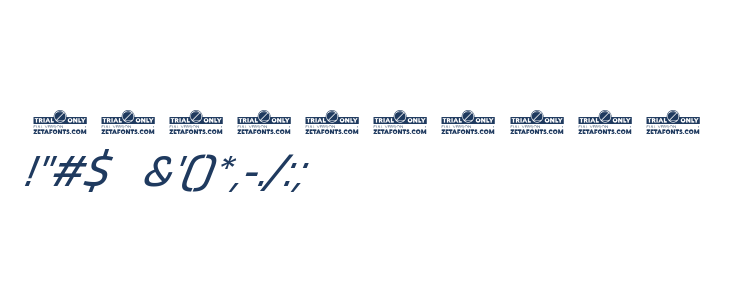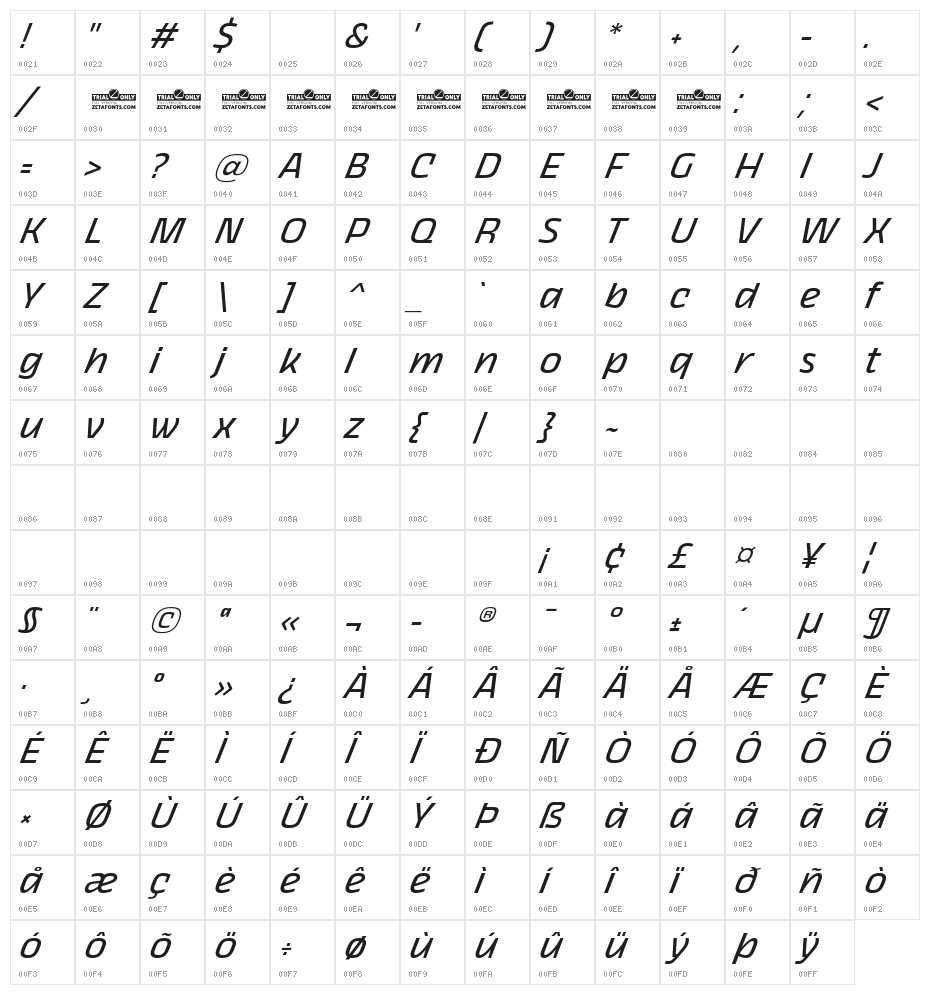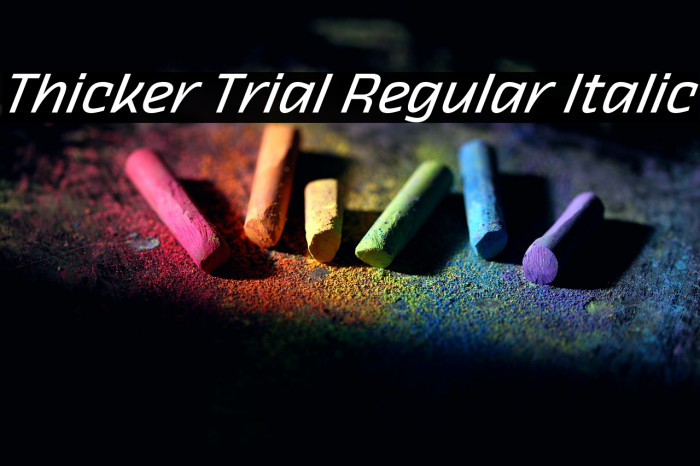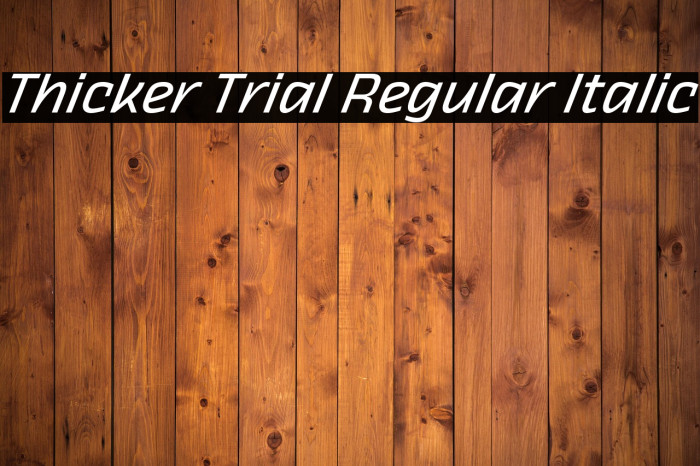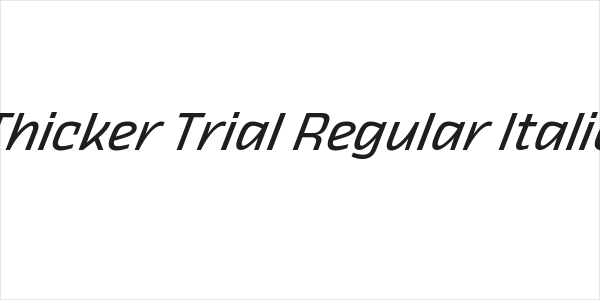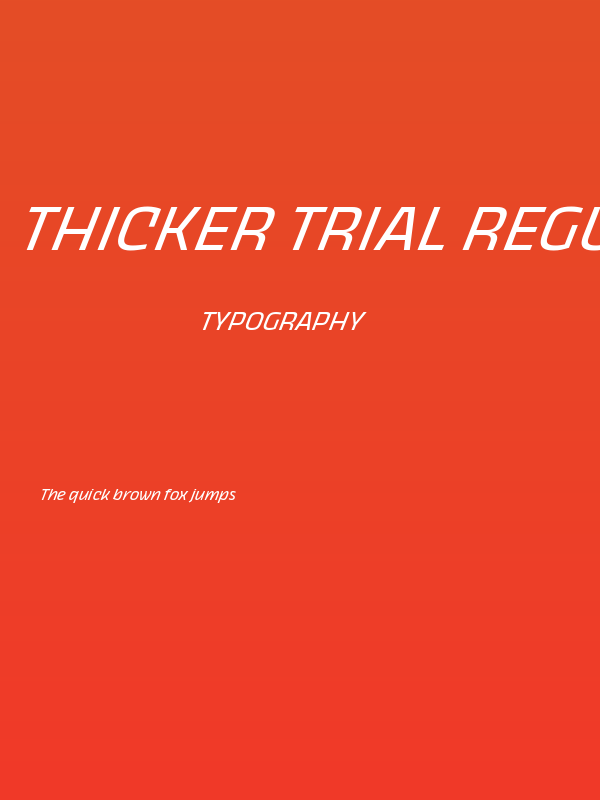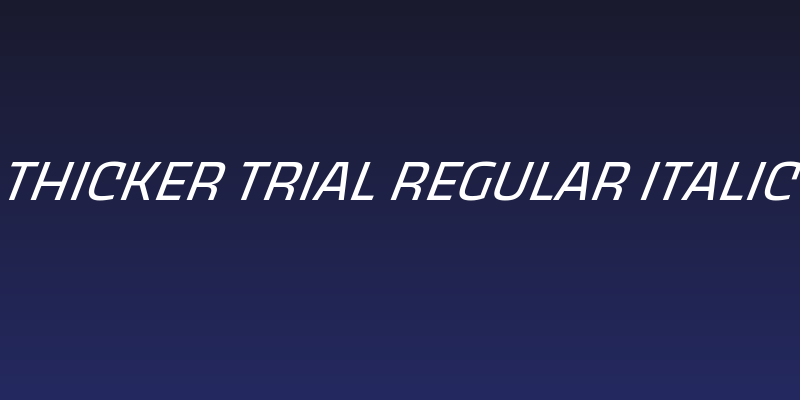
Thicker Trial Regular Italic Font
Thicker Trial Regular Italic Description
This font features a sleek and modern design with a slight italic slant, giving it a dynamic and forward-moving appearance. The characters are well-proportioned with a consistent stroke width, providing a clean and professional look. The uppercase and lowercase letters maintain a harmonious balance, making it versatile for various applications. The numerals and special characters are designed to match the overall style, ensuring uniformity across different text elements. Its contemporary aesthetic makes it suitable for both digital and print media.